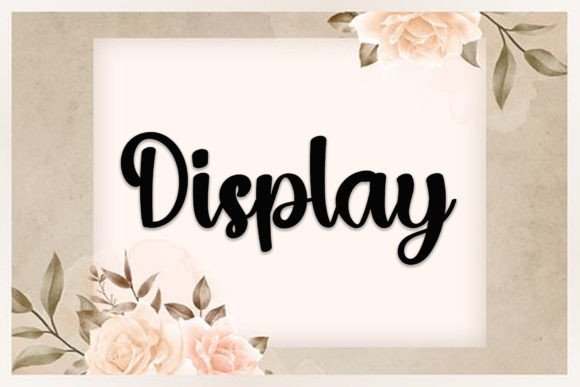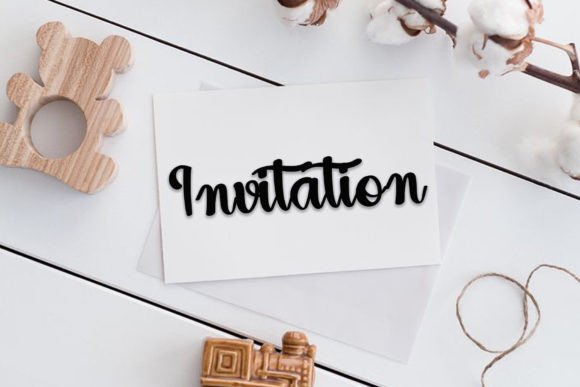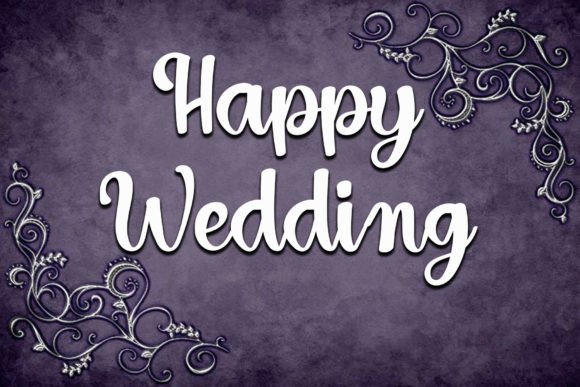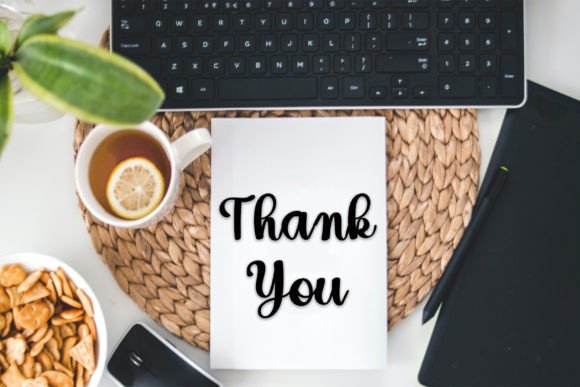
Introduction to Shapes Font
Do you remember that moment when you’re working on a creative project and you just can’t find the right font to bring it all together? You’ve got your colors, your shapes, and your textures, but that one missing piece is just out of reach. For designers, this is a common struggle, and it can make all the difference between a project that’s just okay and one that’s truly exceptional.
That’s where the Shapes Font comes in – a stylish handwritten font that’s sure to elevate your designs and make them stand out. With its contemporary atmosphere and impeccable form, this font is inspired by timeless classic calligraphy and is the perfect addition to any design project.
- Unique characteristics include intricate details and custom designs, making it stand out from other design resources.
Honest Review: Shapes Font
As a designer, I’m always on the lookout for high-quality design resources to elevate my creative projects. Recently, I had the chance to try out the Shapes Font, and I’m excited to share my honest review with you.
What works well: ✨ The Shapes Font is incredibly versatile, with a wide range of shapes and icons that can be used to create visually appealing designs. The font is also highly customizable, allowing me to easily adjust the size, color, and style to fit my project’s needs. I also appreciate the transparent background option, which makes it easy to layer shapes on top of each other.
What doesn’t work well: ⚠️ One limitation of the Shapes Font is that it’s not suitable for large-scale designs. The font can become cluttered and overwhelming when used in excess, which may detract from the overall aesthetic. Additionally, some of the shapes may not be as high-quality as I’d like, with visible pixelation or distortion.
Shapes Font
Tips for Getting the Most Out of Shapes Font
Common Use Cases for Shapes Font